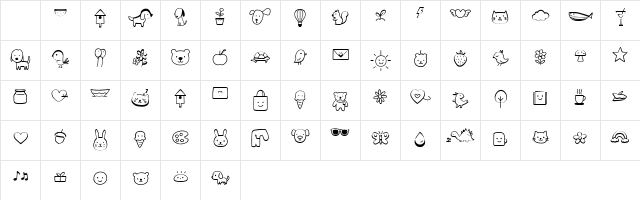
Complete Un Escargot qui Saute Regular glyph index. Displaying only characters natively supported by Un Escargot qui Saute Regular font.
Un Escargot qui Saute is a composed and adaptable typeface that performs quietly and consistently across a wide range of design contexts.